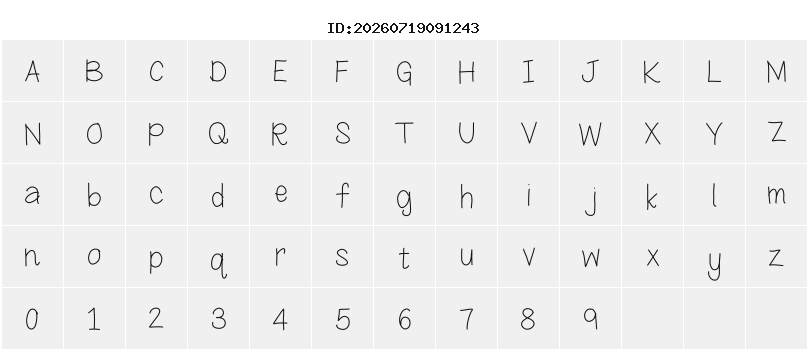
• Font Name: Colorado Sunshine
• Full Font Name: Colorado Sunshine
About Colorado Sunshine .ttf
Colorado Sunshine .ttf is a modern, elegant sans-serif font designed for ultimate readability and visual harmony. Perfect for branding, headlines, web design, and print materials.